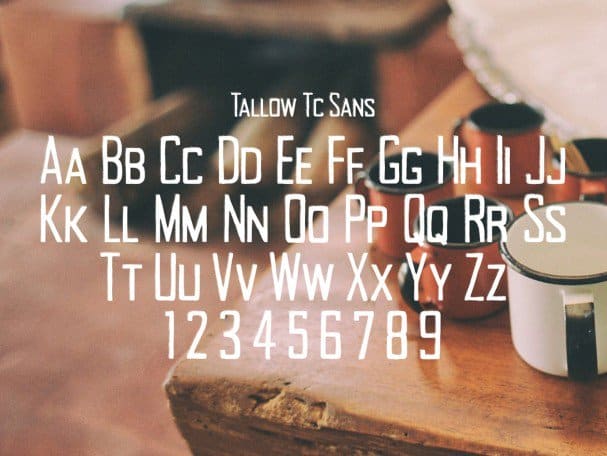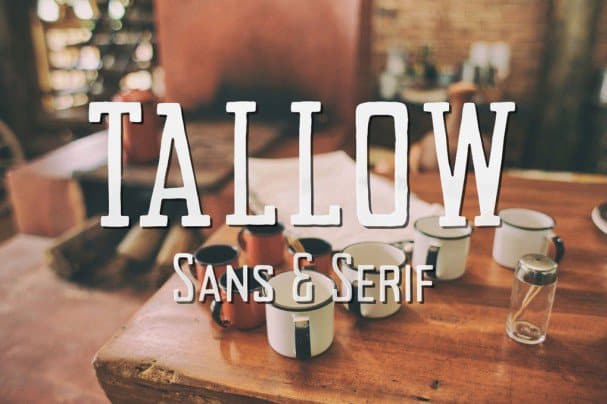
Tallow Font
Tallow Font is well-known for its pairing function and also for the logo designing. This is famous for its copy and paste feature and it is available for free download in zip file format. Similarly, the fox tail font is an all caps condensed rounded makes lovable brand fonts, however, it is also top-notch for packaging, headline, or editorial format. Tallow Font Free With all and sundry turning into the indoors a rectangular body.
However, the precincts among every line are set and each day, giving it an entire of the brilliant gift-day fonts unfastened. In case you are a style searching out emblem fonts like adys font to talk a brand’s message, you keep in mind that this is in no way a smooth assignment. Download The capitals are the equal antique glyphs. If a person has a possibility, you’ll find out using a decrease case.